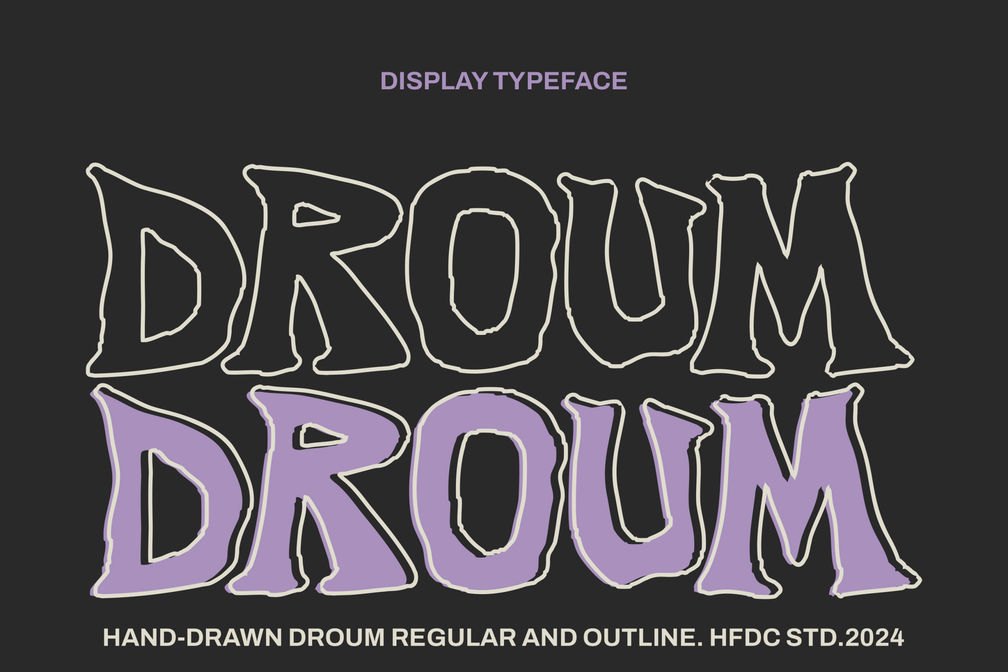
Droum Typeface
Droum is typeface exudes a textured, organic, and bold vibe that feels energetic and dynamic. Featuring all uppercase characters with intentionally irregular yet balanced forms, it creates a look that’s both unique and full of personality.
Available in two styles: outline and solid, this typeface offers versatility for a wide range of design applications. Its handcrafted-inspired shapes deliver a casual yet artistic feel, making it perfect for posters, album covers, creative branding, or any project that demands a striking and unconventional aesthetic.
The rough and expressive details in every letter add a daring edge, making it an excellent choice for modern, attention-grabbing designs.